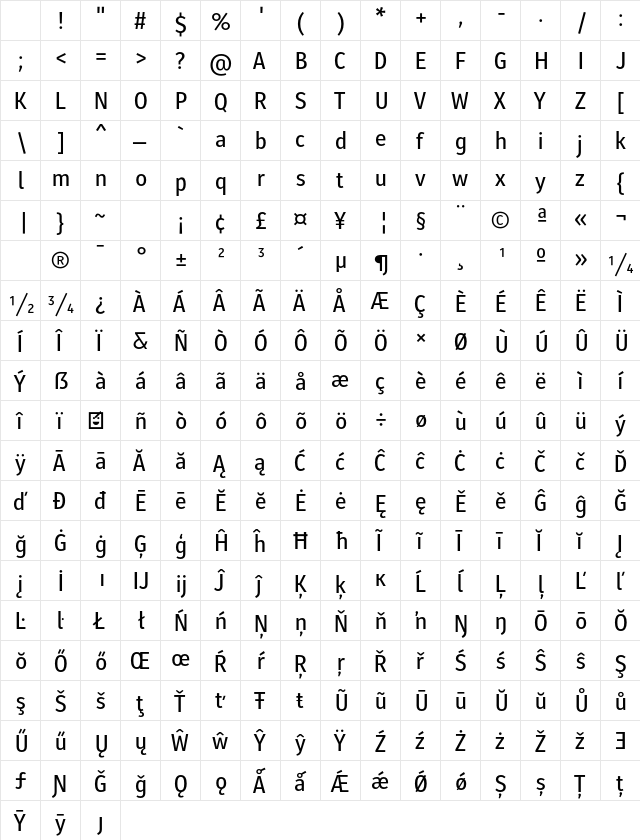
Complete Molecula - Demo Semi Bold glyph index. Displaying only characters natively supported by Molecula - Demo Semi Bold font.
Molecula - Demo is a composed and adaptable typeface that performs quietly and consistently across a wide range of design contexts. Its bold stroke weight gives it real presence on the page.